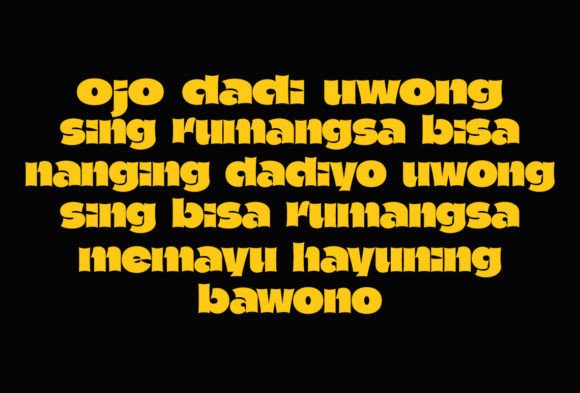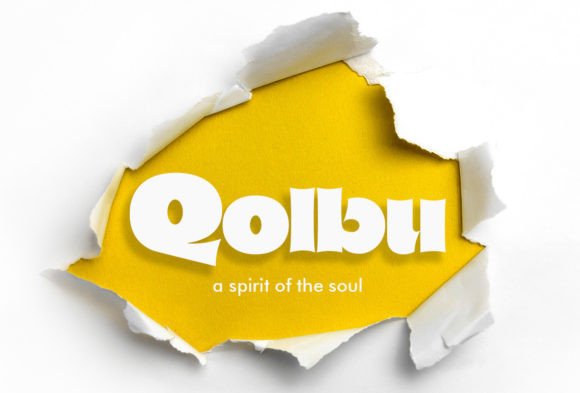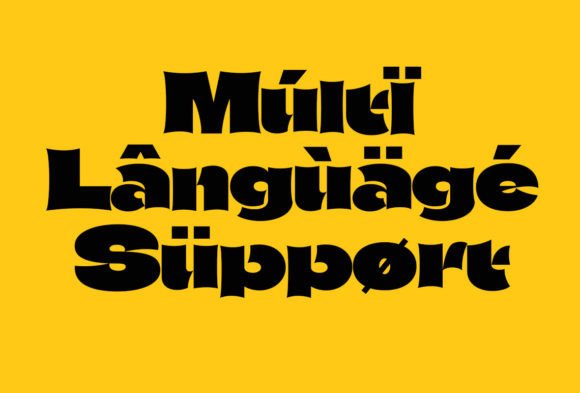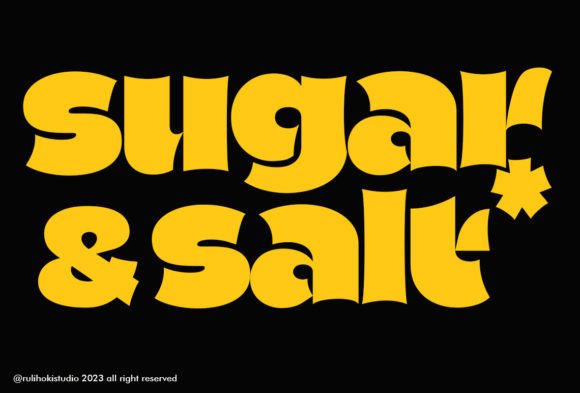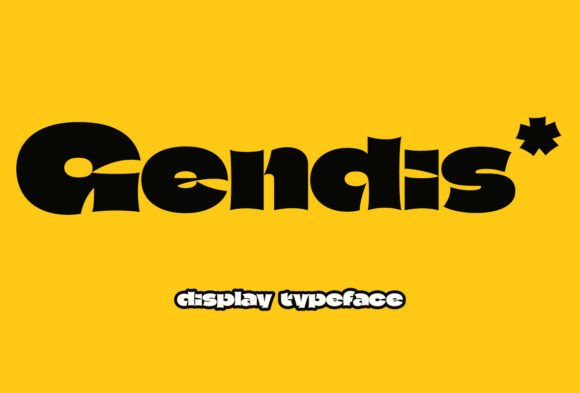
The Birth of a Bold New Font: Gendis
As designers, we’ve all been there – staring at a blank canvas, trying to bring our vision to life. The spark of creativity ignites, and suddenly, the possibilities are endless. For those moments when you need a font that truly stands out, Gendis Font is the perfect companion. This modern sans display typeface is designed to grab attention, with characters that effortlessly cut through any background.
Gendis Font is more than just a font – it’s a statement. Its unique blend of old-school movement and modern minimalist style makes it perfect for branding, posters, logos, and anything else that requires a dash of originality and style. Whether you’re a seasoned designer or just starting out, Gendis Font is an invaluable addition to your toolkit.
Gendis Font Key Features
- Unique Characteristics: The font features a distinctive, modern design with a subtle geometric flair, making it suitable for contemporary branding, advertising, and editorial projects.
- Kerning and Ligatures: The font includes advanced kerning and ligature pairs, ensuring smooth and visually appealing text rendering, even at small font sizes.
Gendis Font Review
I recently had the chance to work with the Gendis Font, and I must say it’s a mixed bag. Let’s dive in and see what I think.
- The Gendis Font has a unique and modern design that’s perfect for creative projects. The bold lines and geometric shapes make it stand out.
- It’s highly customizable, which is great for designers who like to tweak and adjust their fonts to fit their specific needs.
- The font is well-suited for digital use, making it a great choice for web and mobile applications.
- The font can be a bit too bold at times, which can make it difficult to read in smaller sizes or for extended periods.
- The lack of italics and bold-italics can be a limitation for designers who need to create emphasis or distinction in their text.
- The font may not be suitable for body text, as it can be a bit too attention-grabbing and overwhelming.
Overall, the Gendis Font is a great choice for designers who want to make a statement and add some visual interest to their projects. However, it may not be the best choice for every project, and designers should carefully consider its limitations before making a decision.
Tips for Getting the Most Out of Gendis Font
To get the most out of the Gendis Font, consider the following tips:
1. Use the Gendis Font for headings and titles to add a touch of elegance.
2. Pair the Gendis Font with other fonts to create a unique and eye-catching design.
3. Experiment with different font sizes and styles to add emphasis and visual interest.
Common Use Cases for Gendis Font
The Gendis Font is ideal for:
1. Luxury brand designs
2. High-end marketing materials
Alternatives to Gendis Font for Designers
Open Sans is a clean and modern sans-serif font that is highly legible in digital formats. It is suitable for body text, headlines, and captions. Open Sans is more versatile than Gendis Font as it has a larger character set and supports multiple languages.
Comparison: While Gendis Font has a similar modern feel, Open Sans is more polished and refined, making it a better choice for professional designs.
Lato is a sans-serif font with a strong emphasis on legibility and readability. It is perfect for use in digital products, such as websites, apps, and e-books. Lato is more elegant than Gendis Font, making it suitable for creative and modern designs.